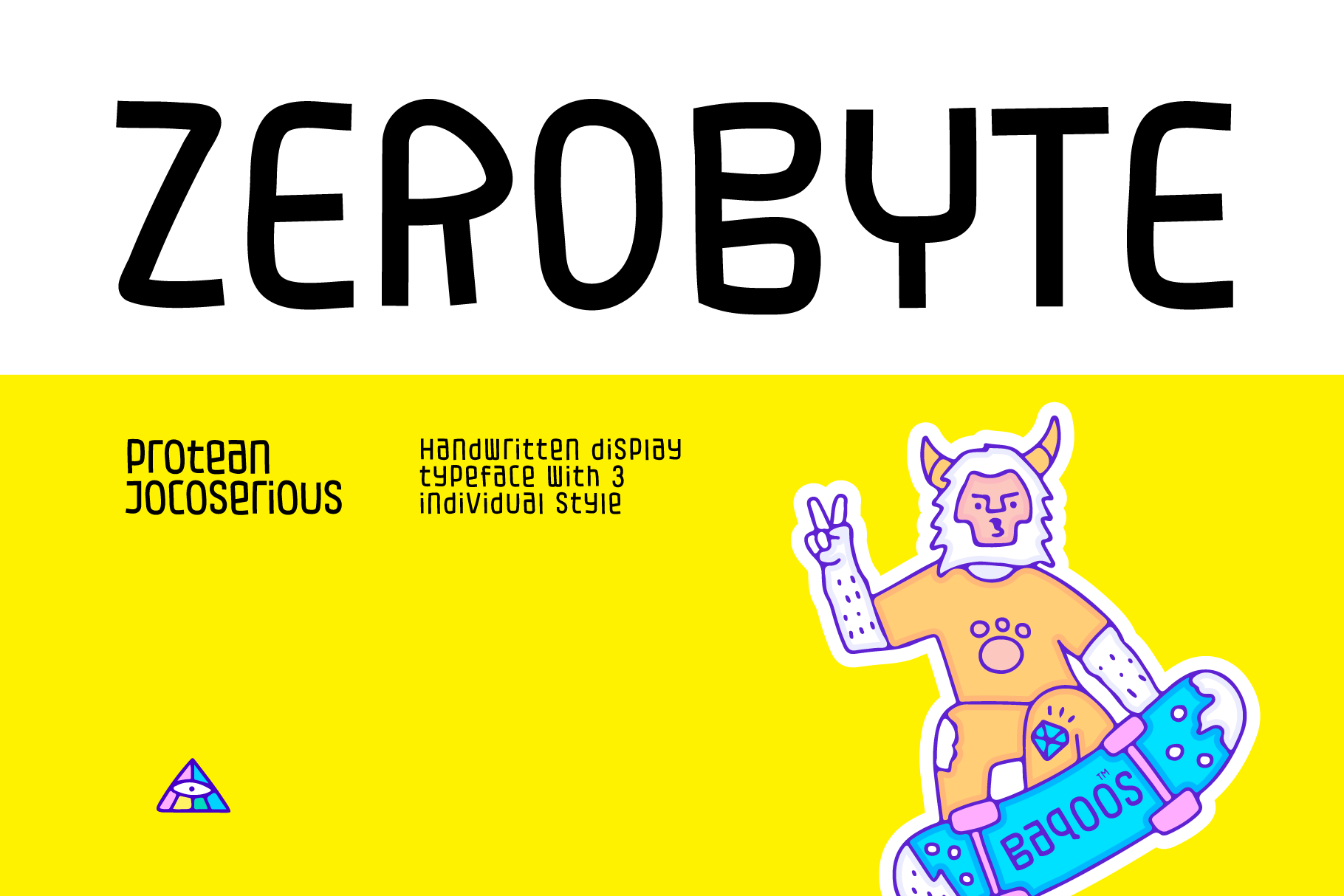
Zerobyte Font
Zerobyte is a protean jocuserious handwritten mix cased typeface apt for headline, editorial, branding, packaging, printed materials and typographic applications. 200+ glyphs including punctuation and numerical.